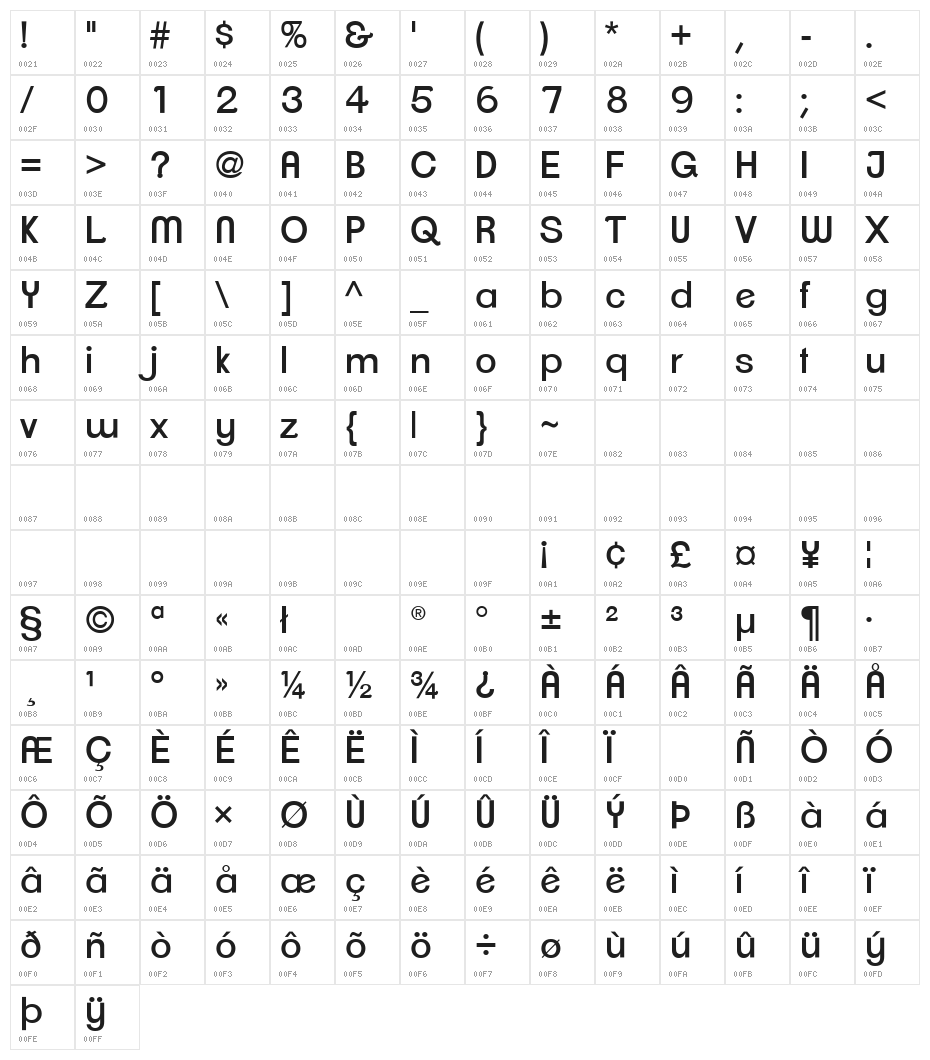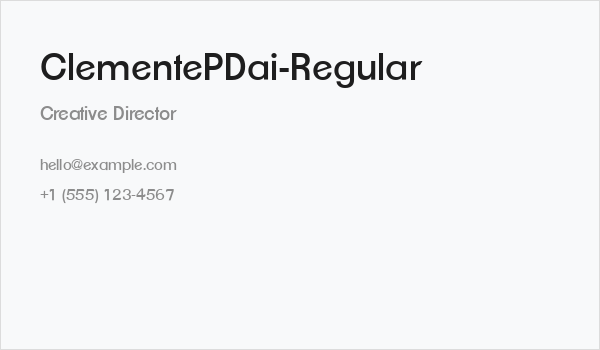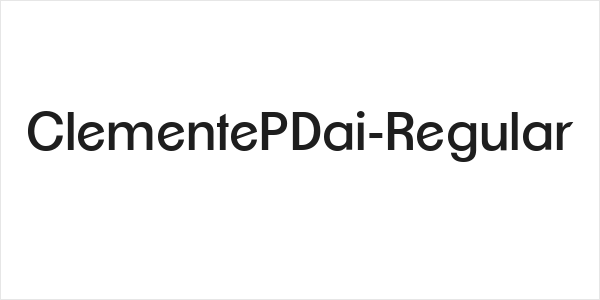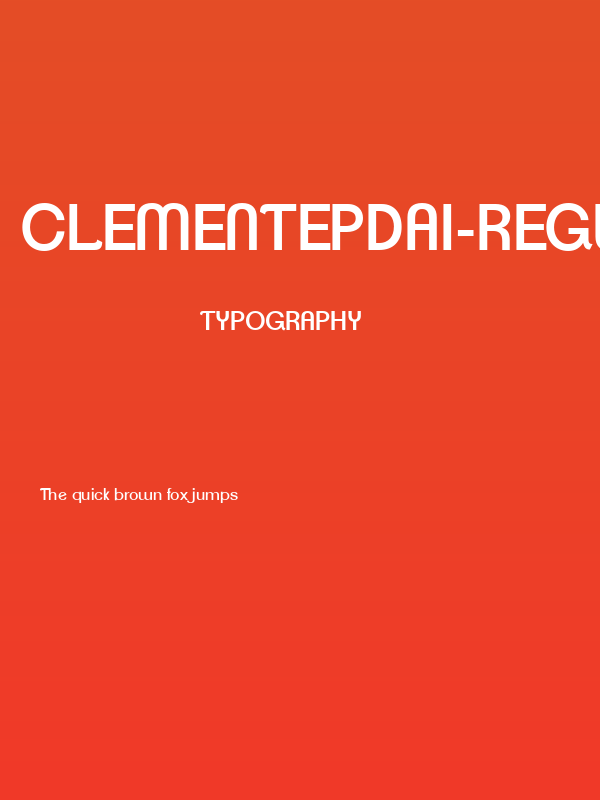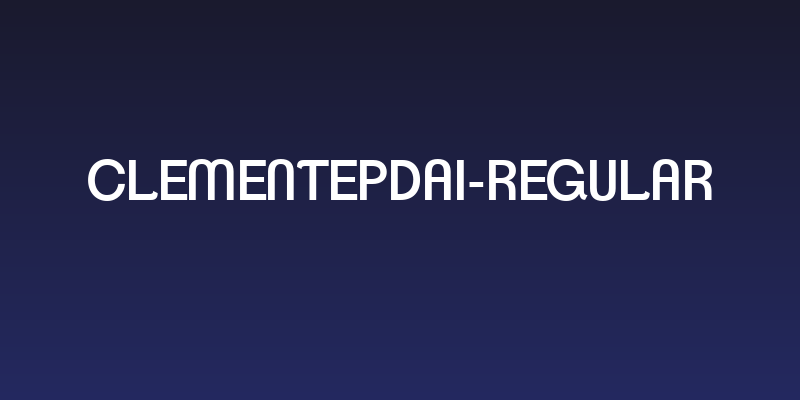
ClementePDai-Regular Font
ClementePDai-Regular Description
This font features a clean, modern sans-serif style with a geometric structure. The characters are well-proportioned, offering a balanced and harmonious appearance. The uppercase letters are bold and assertive, while the lowercase letters maintain a consistent and smooth flow. The numerals are clear and easily distinguishable, making them suitable for various applications. Special characters are designed with simplicity and clarity in mind, ensuring they complement the overall aesthetic. This font is versatile, suitable for both digital and print media, and can be used effectively in a variety of design contexts.
| Proposed Projects | Ideal for branding, web design, advertising, and editorial layouts. |